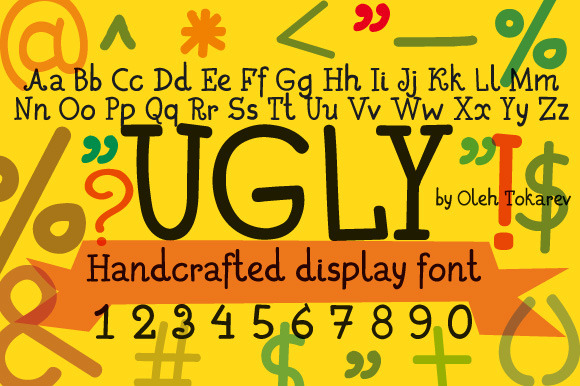
Ugly handcrafted display font
Ugly is modern display font, every single letters have been carefully crafted to make your text looks ugly, fun, crooked and rough. You can use this font for many different project ex: quotes, blog header, poster, branding, logo, letter, invitation, stationery, etc. WOFF and TTF, AI, PDF, PNG format included.